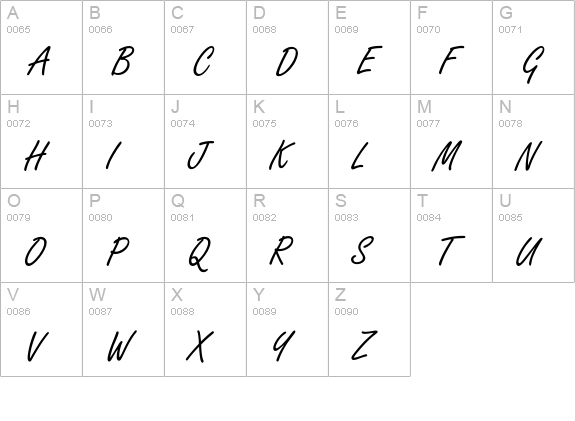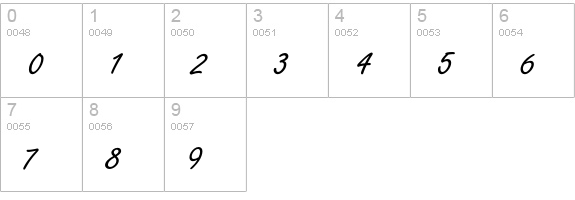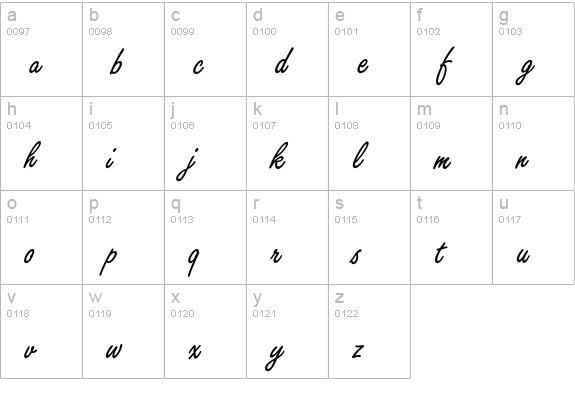
Arabella Font Details
Arabella font is a beautifully designed typeface that exudes elegance and sophistication. Its intricate details and graceful curves make it perfect for adding a touch of luxury to any design project. The flowing lines of Arabella font give it a sense of timeless beauty that is sure to captivate and inspire. What sets Arabella font apart is not only its striking aesthetic appeal but also its versatility. Whether you're working on a wedding invitation, a branding project, or a magazine layout, this font will effortlessly elevate your design to new heights. The best part? Arabella font is completely free! You can easily download it at FontsMarket.com and start using it in your projects right away. Don't miss out on the opportunity to add this exquisite font to your collection. Download Arabella font today and let its beauty shine in your designs.